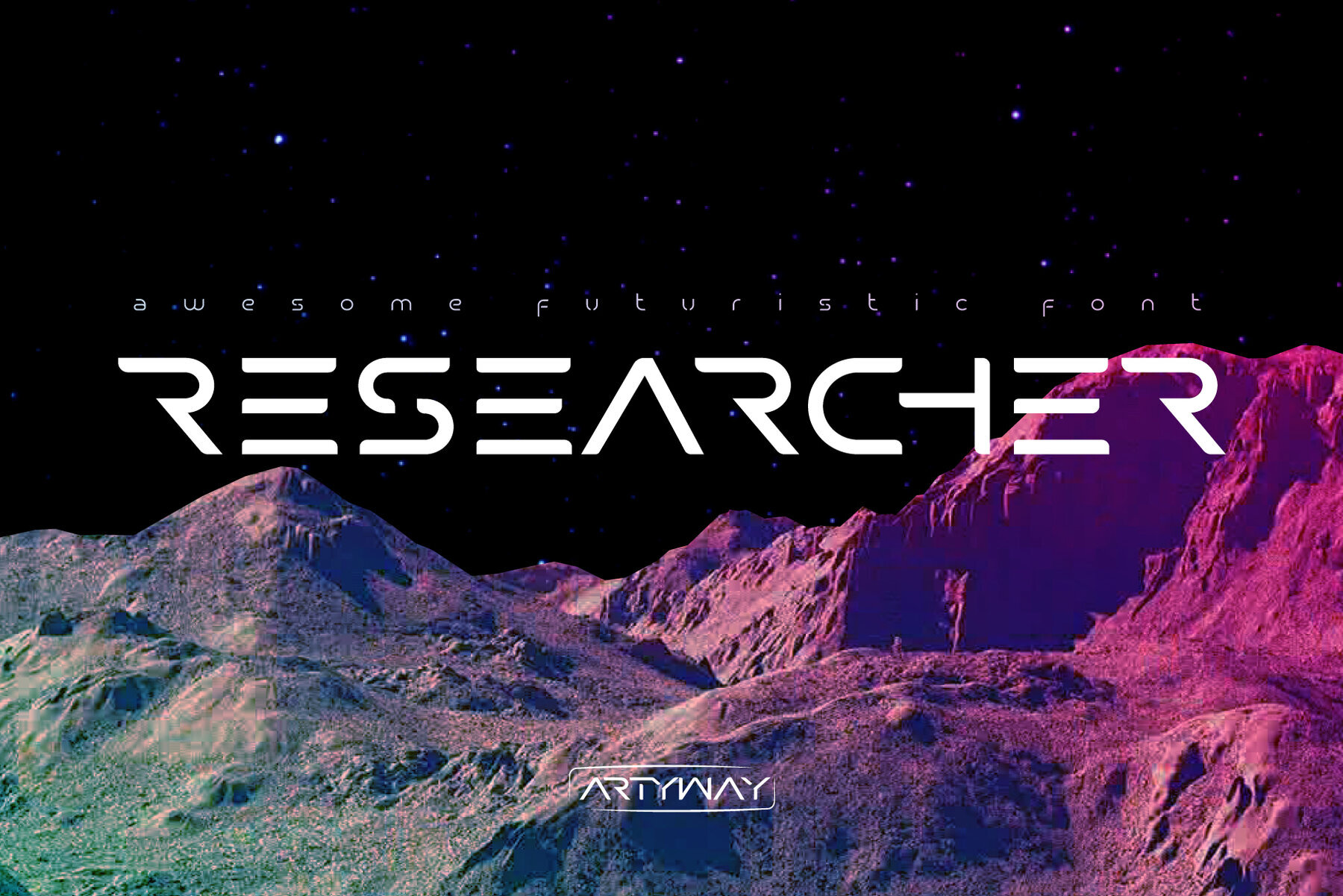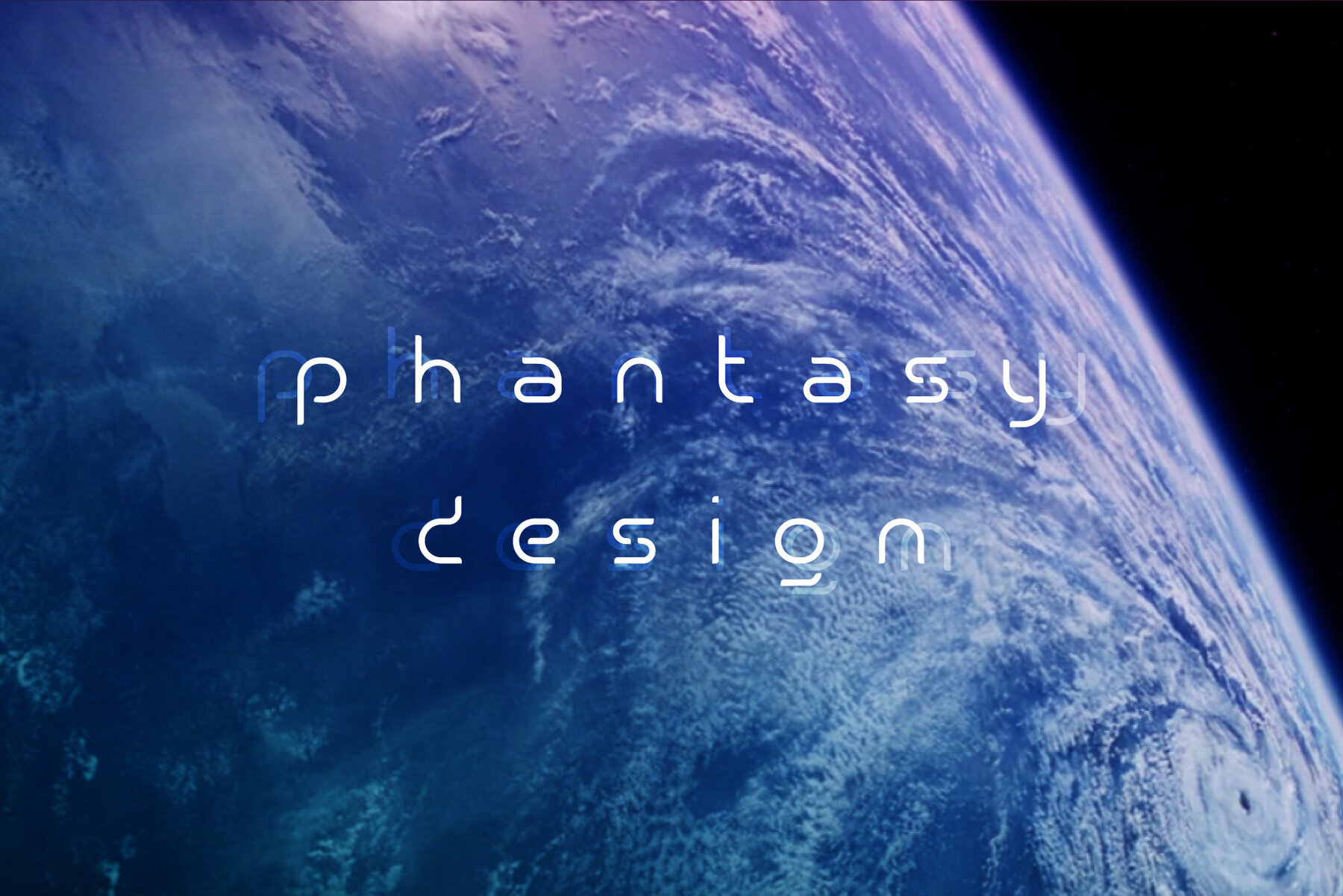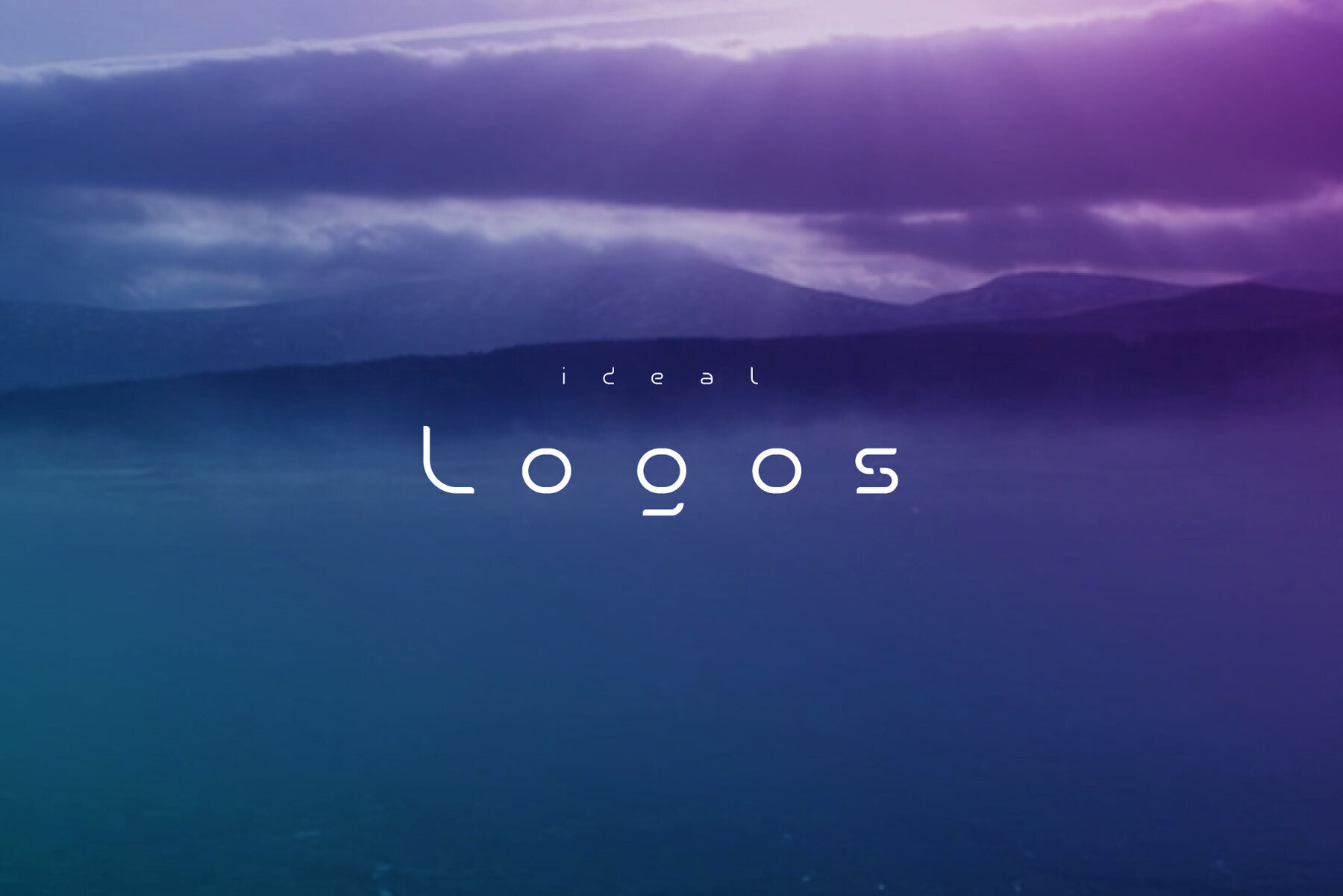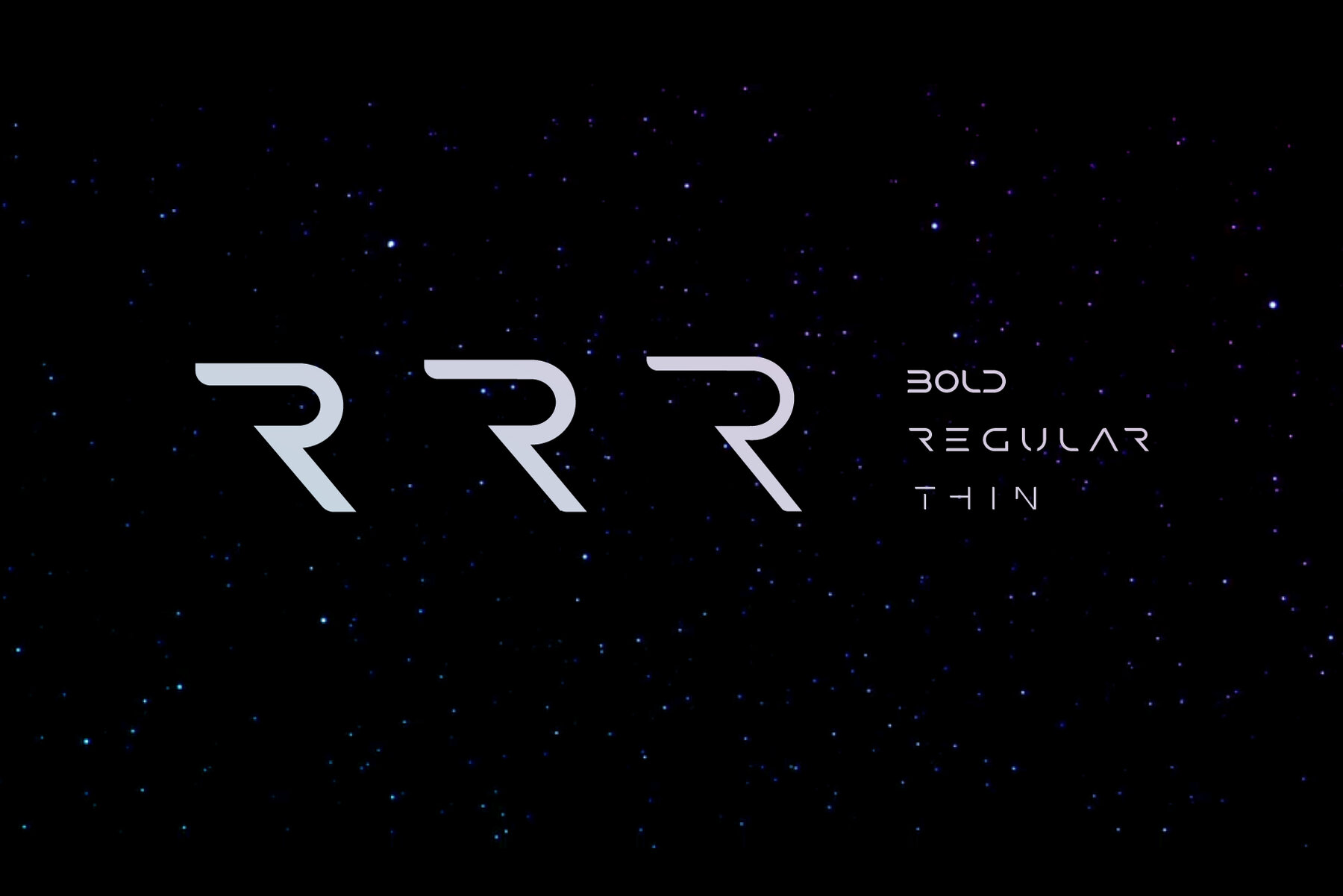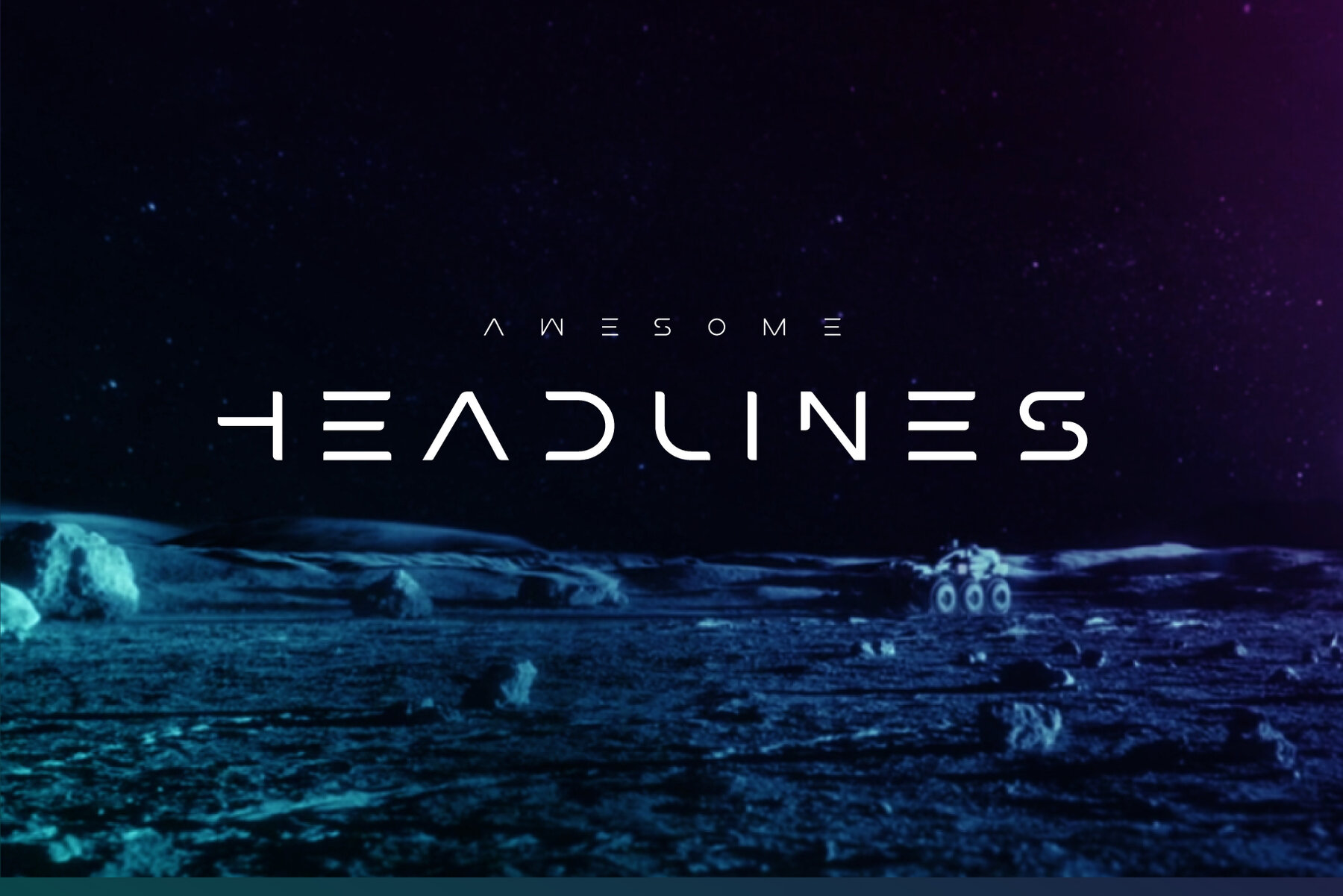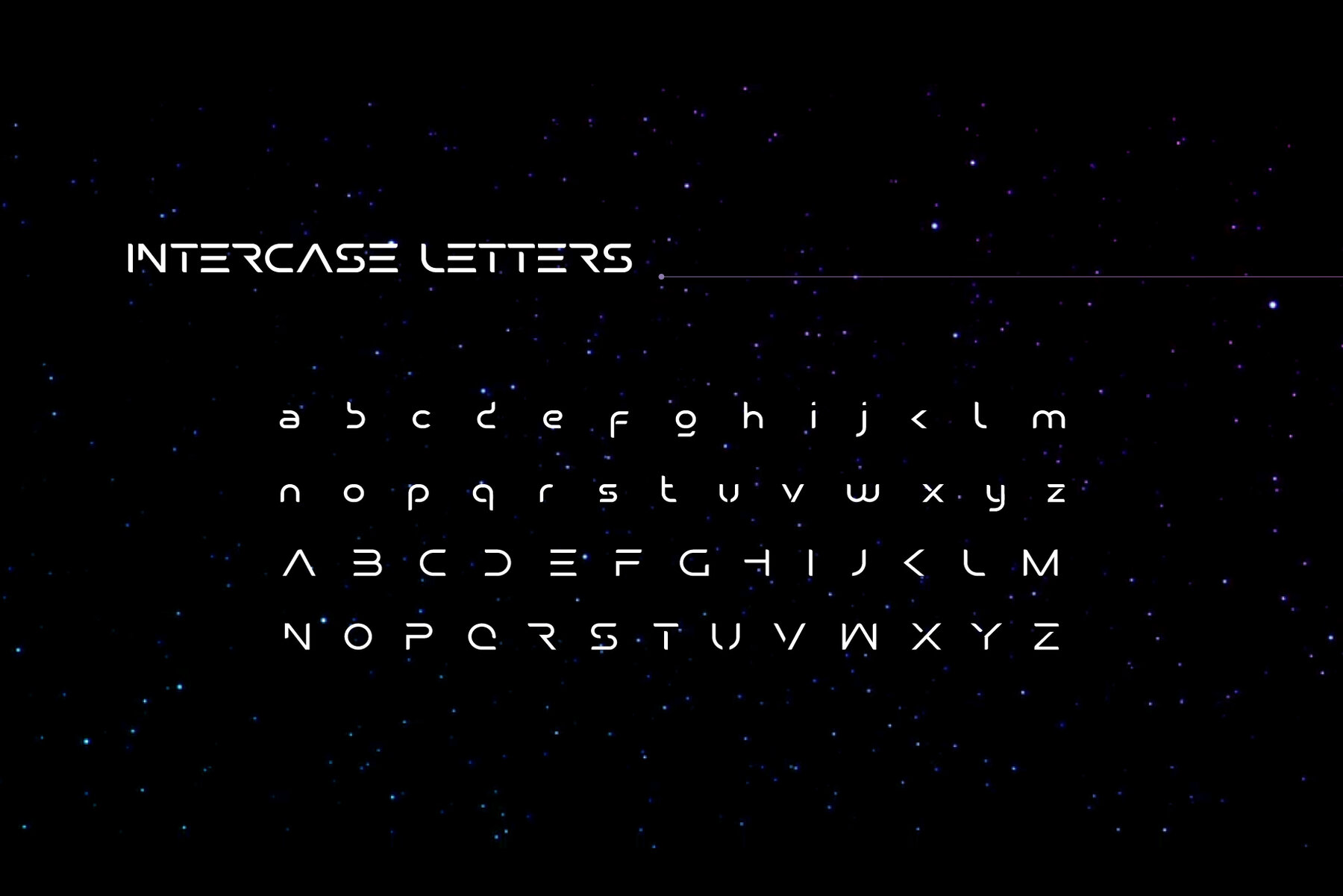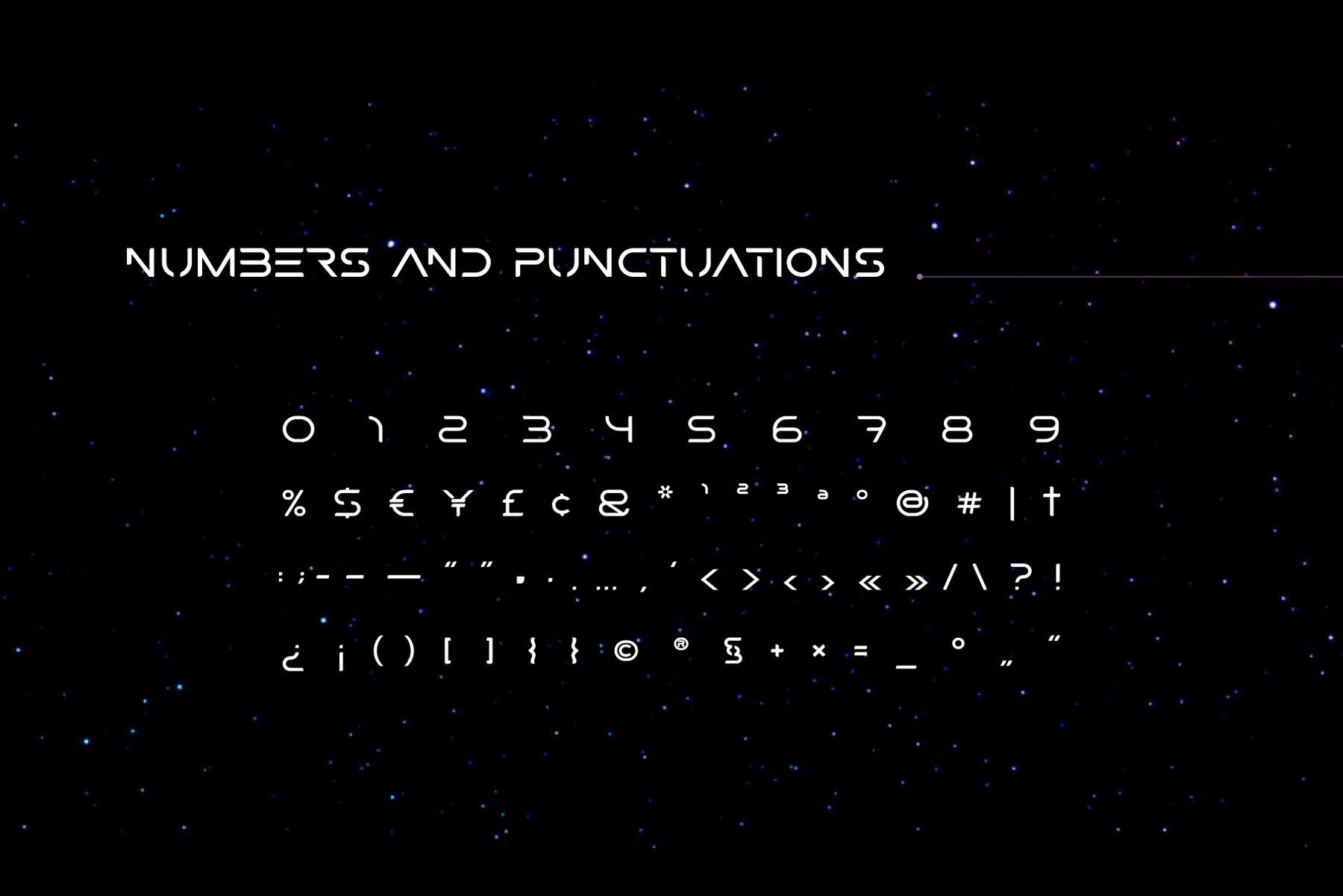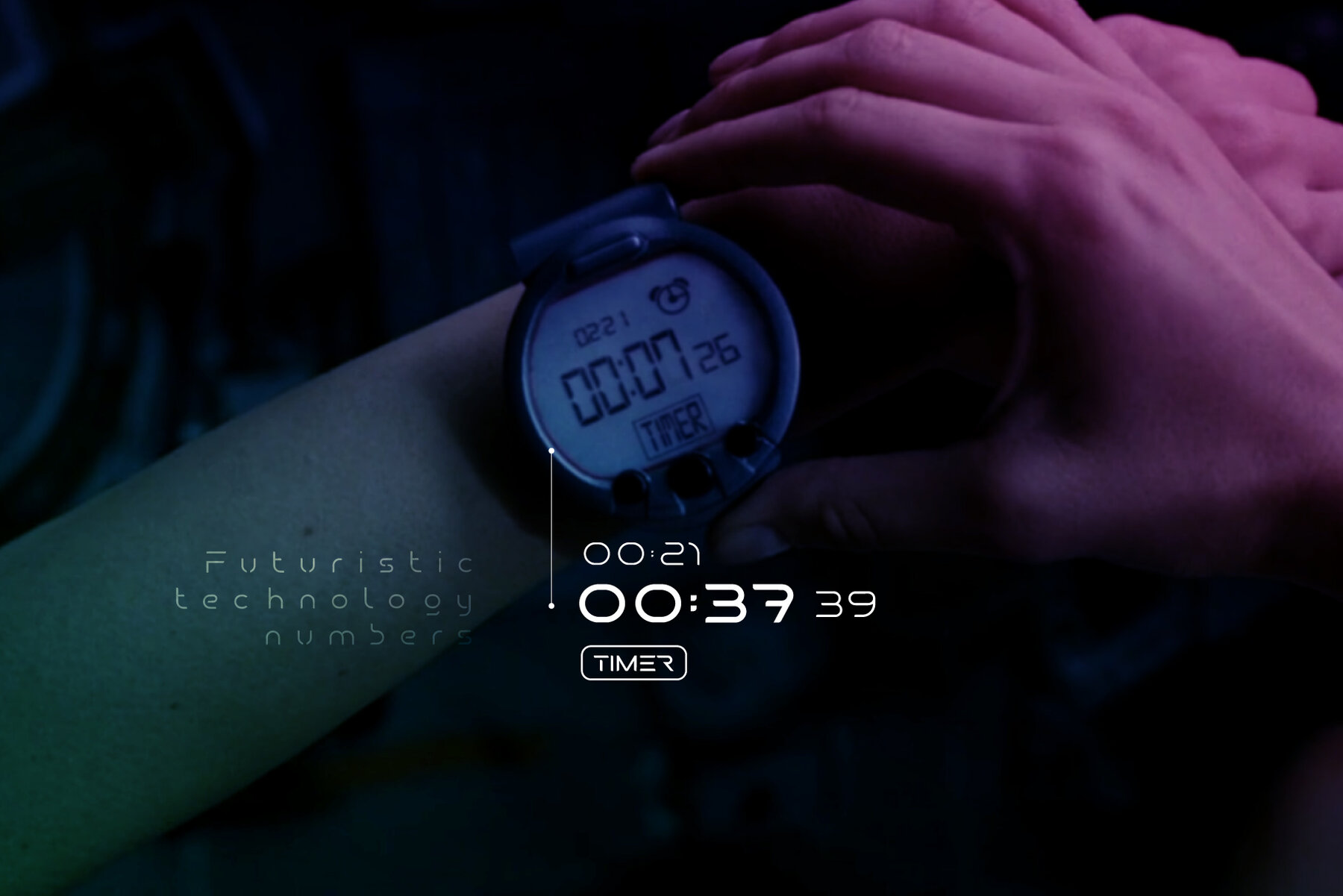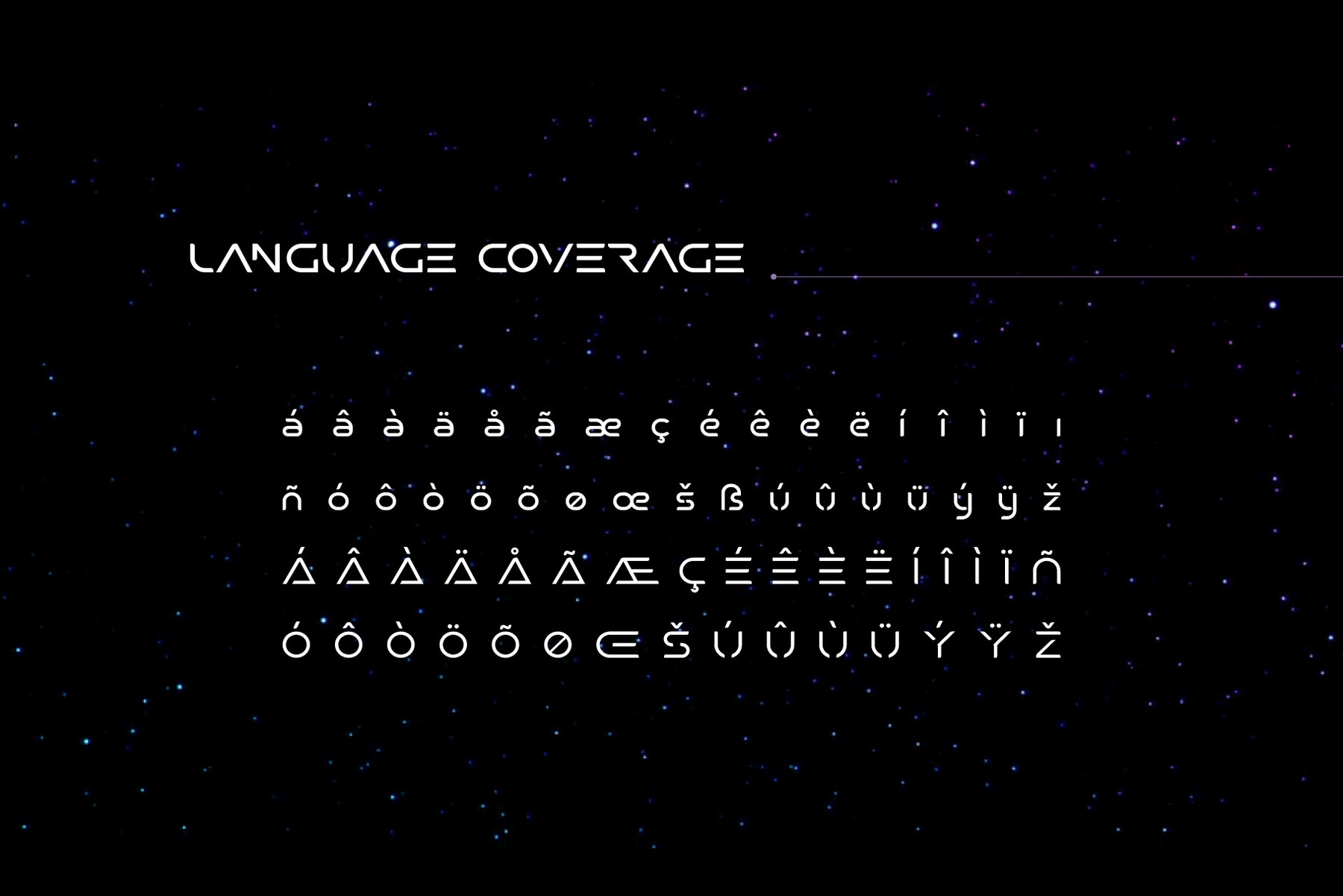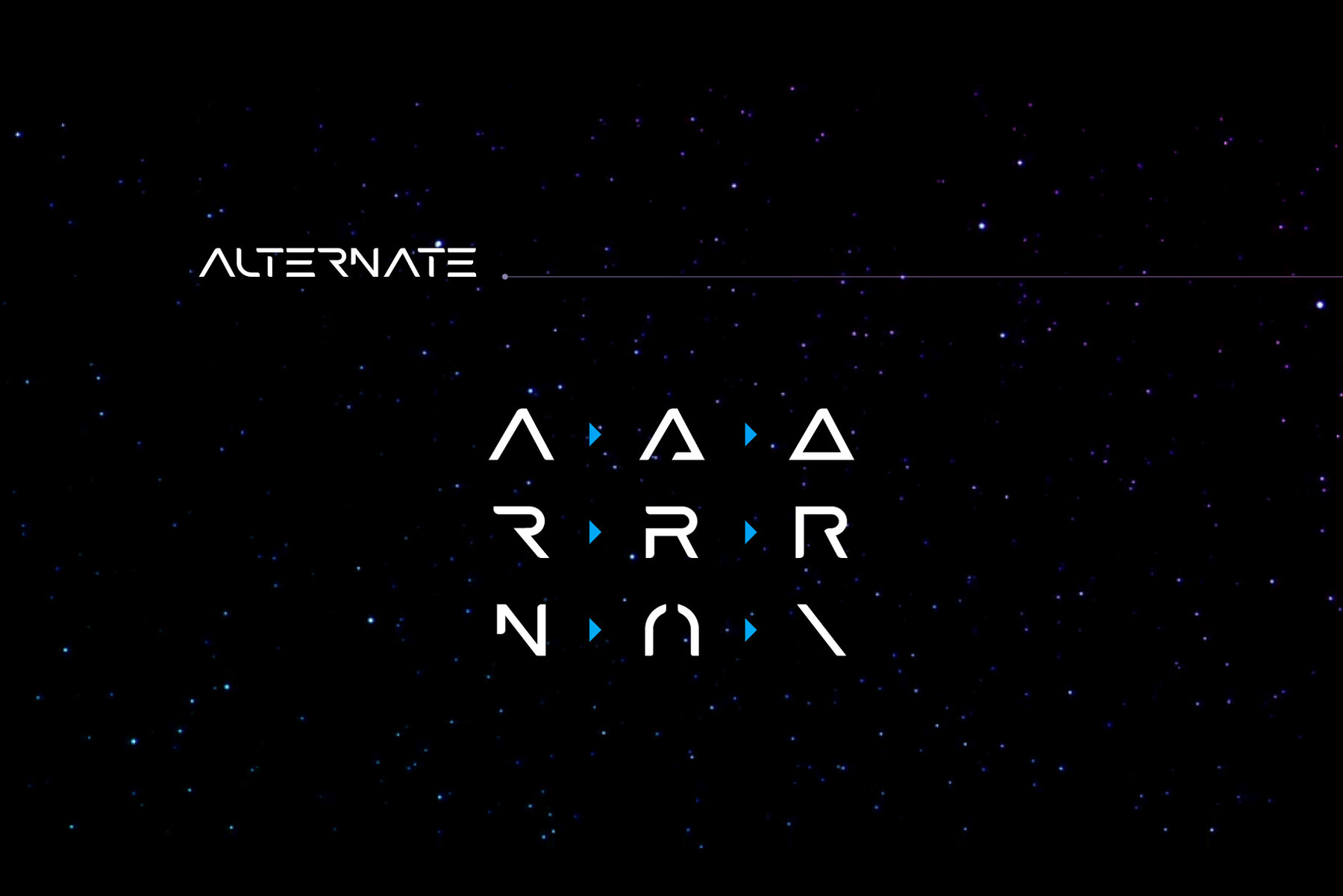
Researcher Font
The Researcher is a futuristic font it an eye-popping aesthetic, inspired by sci-fi and future style. Suitable for all kinds of projects: from posters, web design, branding, to movie titles, badges, and especially logotypes and headlines. The Researcher is a bold and amazing futuristic font with beautifully sleek shapes in 3 weights: thin, regular, and bold. Includes uppercase and lowercase letters, numbers and punctuations, alternate symbols, and language coverage.